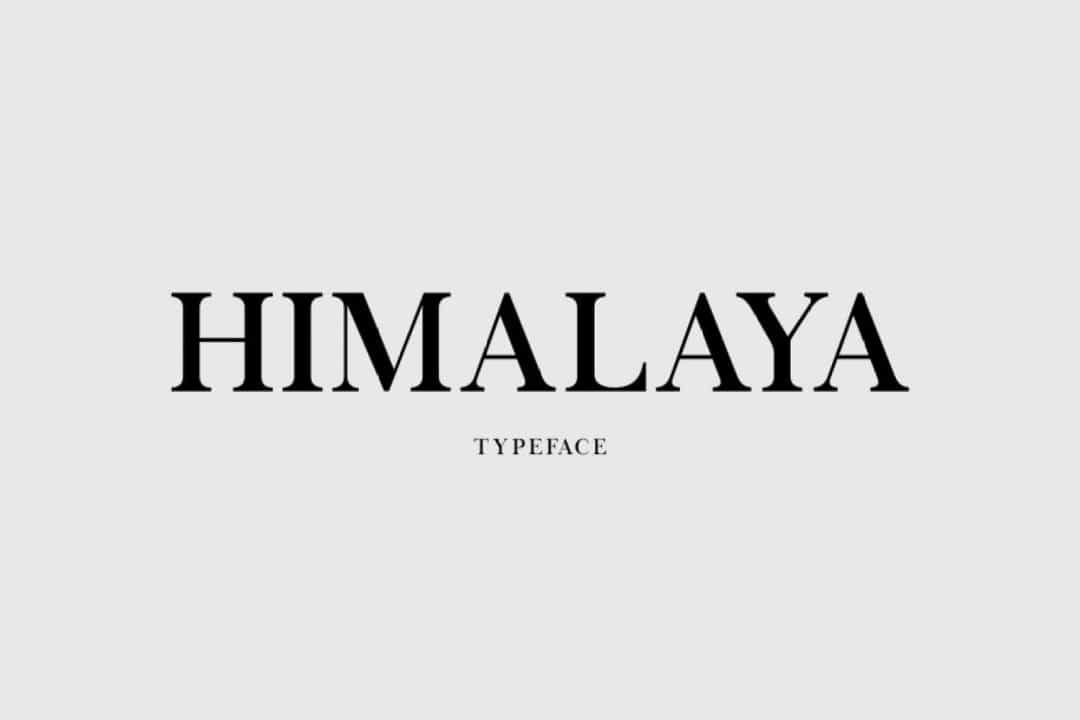
Discover Himalaya Font, part of the Serif collection—a versatile and unique font perfect for adding a personal touch to your projects. Download it for free and enjoy crafting designs with style, from invitations to social media posts. This font is available exclusively for personal use, giving you the freedom to create without limits. Unlock your creativity with Himalaya Font today!
Himalaya is a bold, thickly lettered serif font designed for designs such as logos, sportswear, T-shirt advertising and clothing designs.